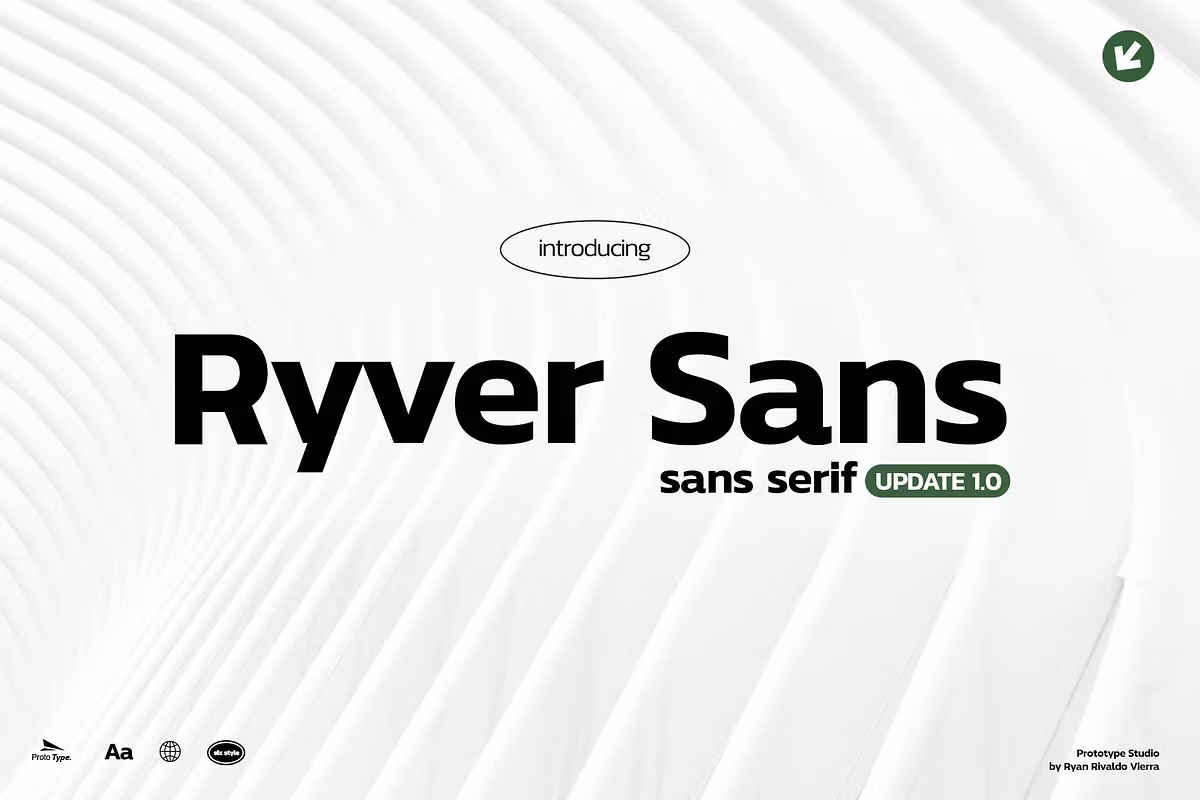
Ryver Sans Update 1.0 Font Free Download is a modern and versatile sans-serif typeface designed for clean, professional designs. Featuring straight lines and balanced proportions, this font is perfect for branding, user interfaces, websites, editorial design, and corporate materials. With the latest update, Ryver Sans offers enhanced readability and improved weights, making it an even more powerful tool for any designer.
Whether you're creating a sleek logo, a minimalist website, or an engaging editorial layout, Ryver Sans Update 1.0 Font Free Download provides a refined and contemporary look for any design project. It’s a perfect choice for a wide range of creative applications.